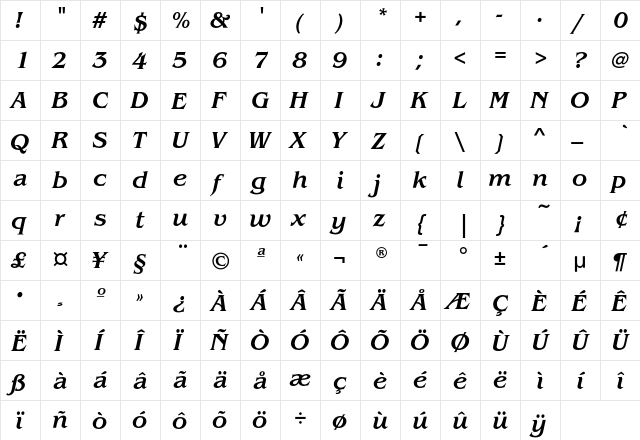
BenguiatEF-MediumItalic Regular
Design Context for BenguiatEF-MediumItalic Typeface
BenguiatEF-MediumItalic offers clean, dependable letterforms without strong stylistic allegiance, making it a practical choice for designers who need flexibility. The slanted form adds forward momentum and visual energy.
Pro Tip: Try BenguiatEF-MediumItalic for annotation and caption copy alongside an upright companion — the contrast in angle creates a dynamic but ordered typographic system.